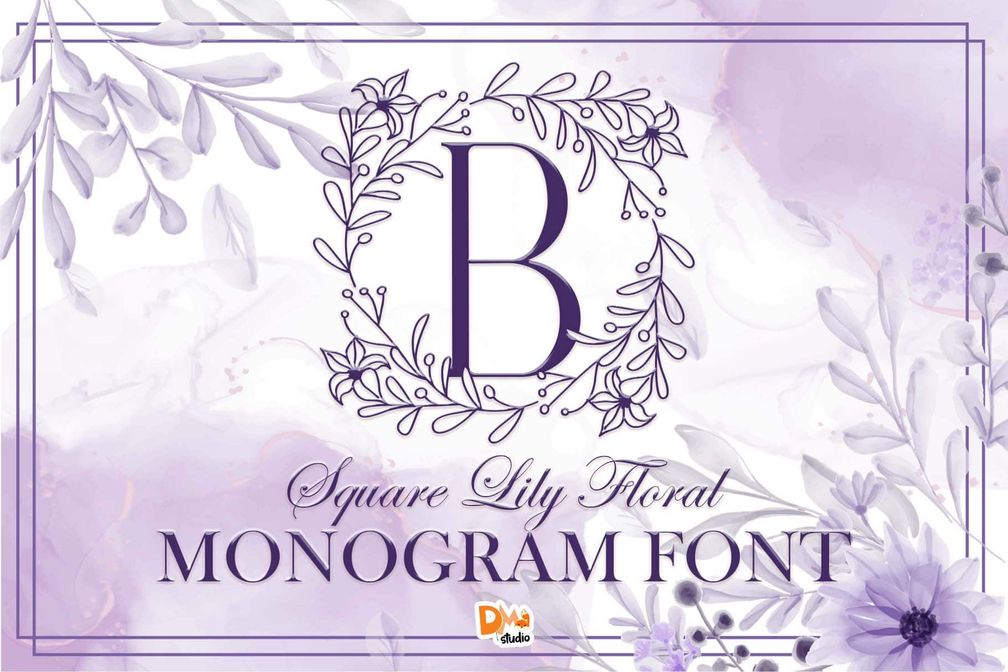
Square Lily Floral Monogram
Square Lily Floral Monogram – Elegant Square-Frame Floral Monogram Font
Square Lily Floral Monogram is a refined and stylish monogram font featuring elegant lily-inspired illustrations encased in a modern square frame. Designed to blend nature’s grace with structured design, this font is perfect for upscale branding, wedding stationery, personalized gifts, and boutique packaging. Each letter is uniquely crafted with delicate lily florals, offering a harmonious balance of elegance and geometry.
• Lily-Inspired Floral Design – Beautiful hand-drawn lilies adorn each character inside a neat square frame.
• Sophisticated & Modern Look – Ideal for chic branding, logos, invitations, and monogram-based designs.
• Geometric Elegance – Combines botanical details with a clean square outline for a timeless aesthetic.